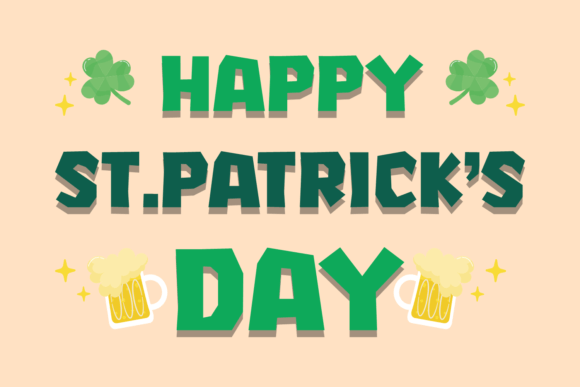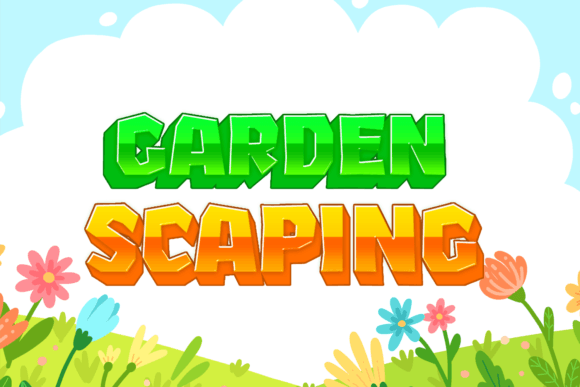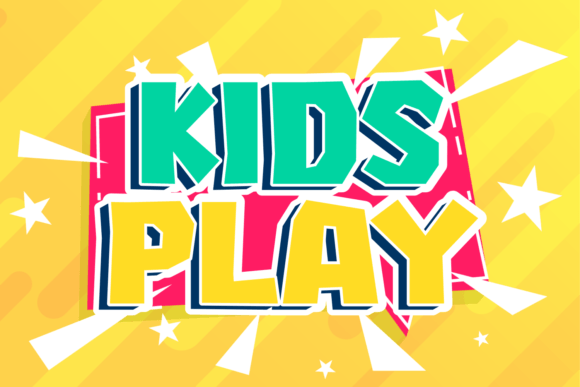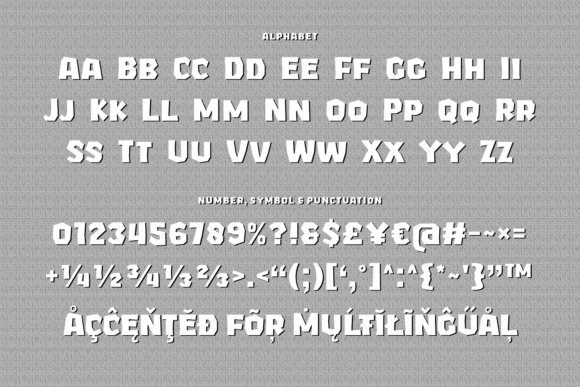
Introducing Don’t Stop Font: The Ultimate Display Font for Eye-Catching Designs
Are you tired of using the same old fonts for your designs? Look no further! Don’t Stop Font is a fun and chunky display font that’s perfect for creating striking and attention-grabbing designs. With its wide and bold characters, this font is sure to take your designs to the next level.
What Makes Don’t Stop Font Special?
Don’t Stop Font is a unique and versatile font that’s designed to make a statement. Its wide and striking characters make it perfect for creating eye-catching designs that demand attention. Whether you’re working on a poster, advertising materials, cover, label, banner, or any other design project, Don’t Stop Font is the perfect choice.
Key Features of Don’t Stop Font
- Fun and Chunky Design: Don’t Stop Font features a fun and chunky design that’s perfect for creating playful and eye-catching designs.
- Wide and Striking Characters: The font’s wide and bold characters make it perfect for creating designs that demand attention.
- Multi-Use: This font is perfect for a variety of design projects, including posters, advertising materials, covers, labels, banners, and more.
Why Choose Don’t Stop Font?
There are many reasons why Don’t Stop Font is the perfect choice for designers and crafters. Here are just a few:
- High-Quality Design: The font is designed to high-quality standards, ensuring that your designs look professional and polished.
- Unique and Versatile: Don’t Stop Font is a unique and versatile font that can be used for a wide range of design projects.
How to Use Don’t Stop Font
Using Don’t Stop Font is easy! Here are a few tips to get you started:
- Pair it with Other Fonts: Don’t Stop Font works well when paired with other fonts. Try pairing it with a sans-serif font for a modern look or a script font for a more playful feel.
- Experiment with Colors: Don’t Stop Font looks great in a variety of colors. Try experimenting with different colors and gradients to find the perfect look for your design.
- Use it for Headings: Don’t Stop Font is perfect for headings and titles. Use it to create eye-catching headings that demand attention.